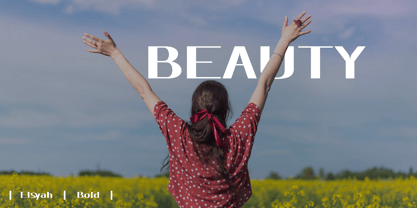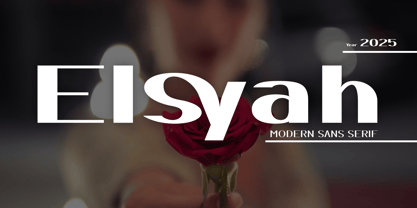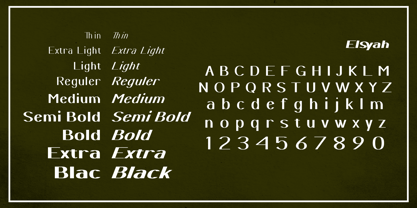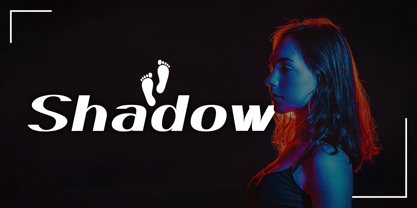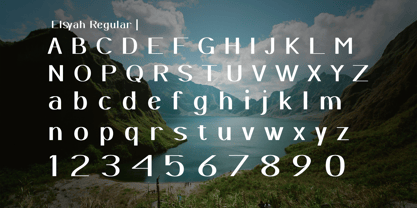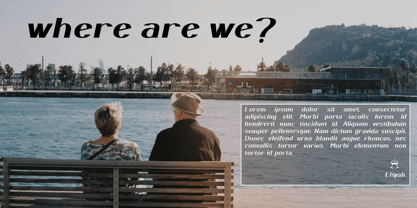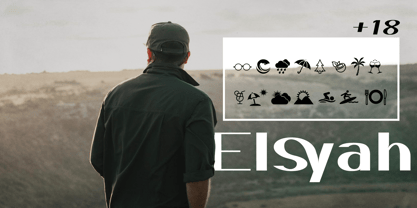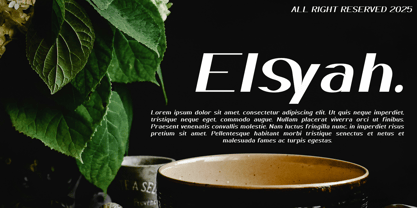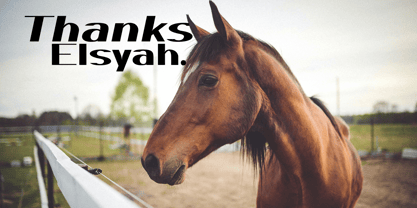
Elsyah
von Social Labs
Die Schriftfamilie Elsyah wurde von Muhammad Naufal entworfen und von Social Labs veröffentlicht. Elsyah enthält 18 Stile und Familienpaketoptionen. Mehr über diese Familie
Elsyah is a modern sans serif font designed with a blend of minimalist style and elegant touches, resulting in clean, bold, and characterful lettering. Suitable for a wide range of design needs such as branding, logos, editorial, invitations, product packaging, and social media, Elsyah delivers a professional and luxurious feel to every project. Equipped with uppercase and lowercase letters, numbers, punctuation marks, and multilingual support, this font offers high flexibility and optimized kerning, making it the perfect choice for designers seeking modern typography that is both aesthetically pleasing and functional.
Designer: Muhammad Naufal
Foundry: Social Labs